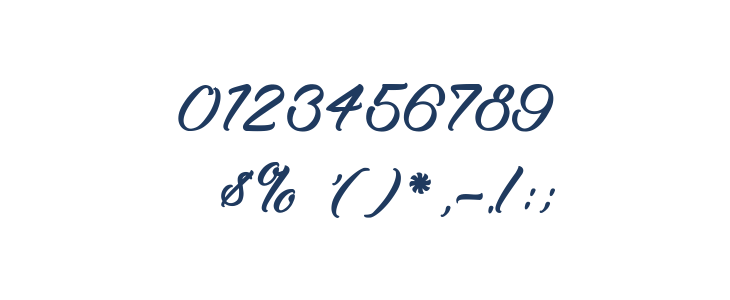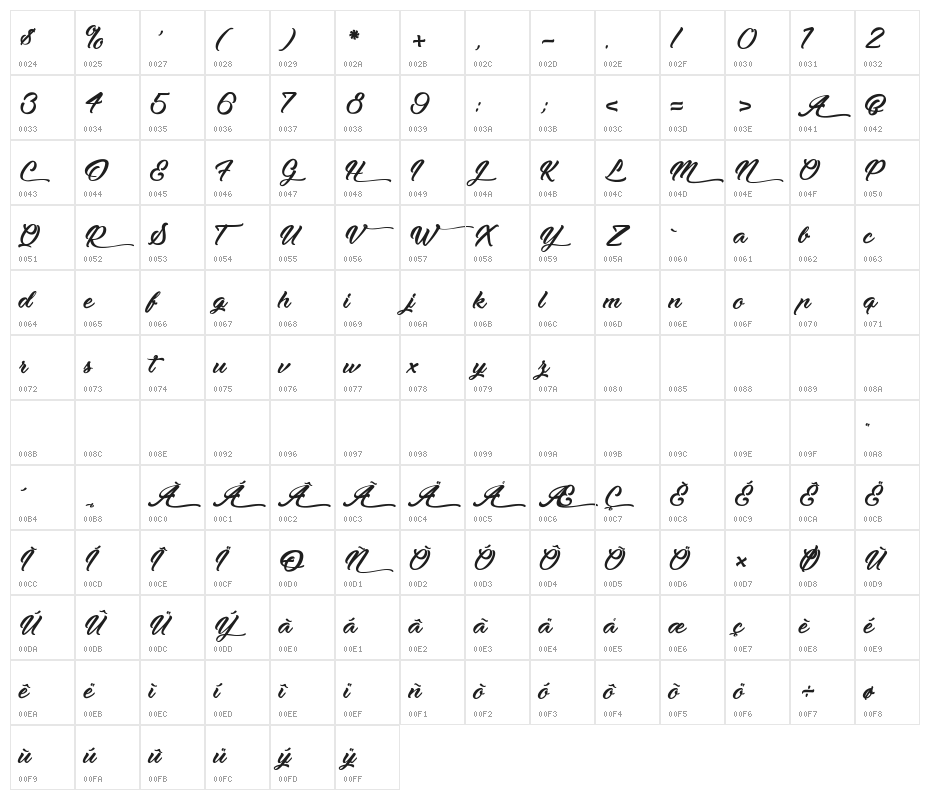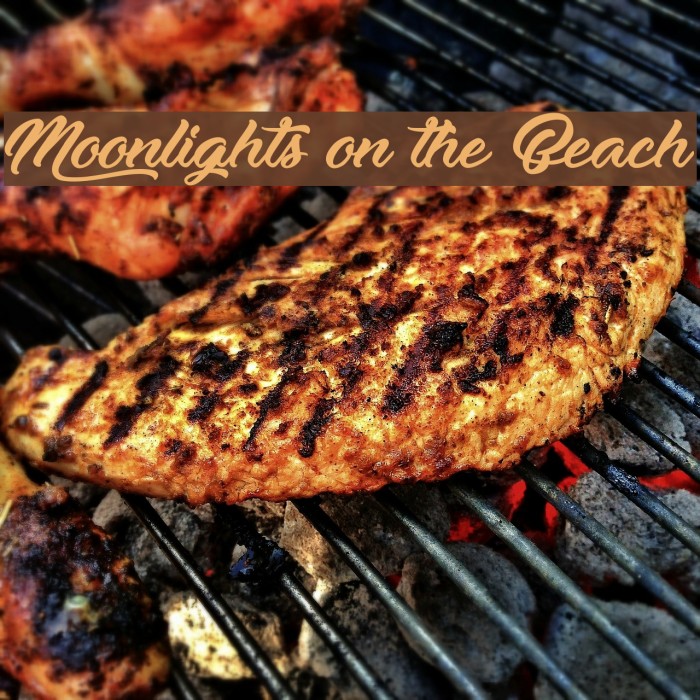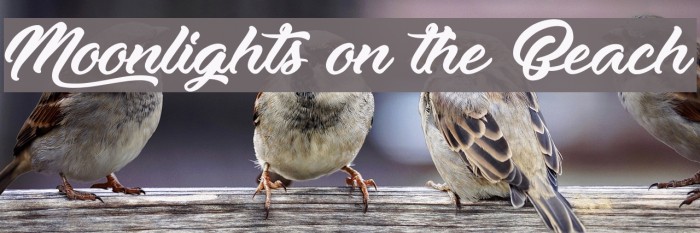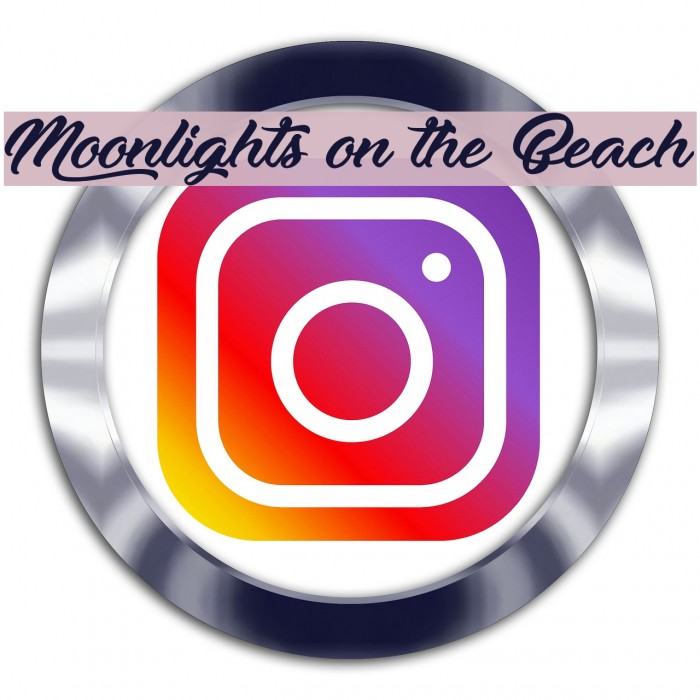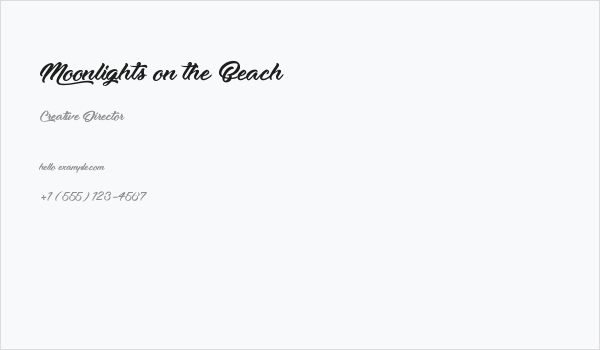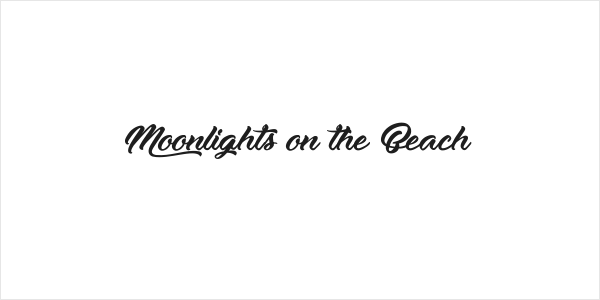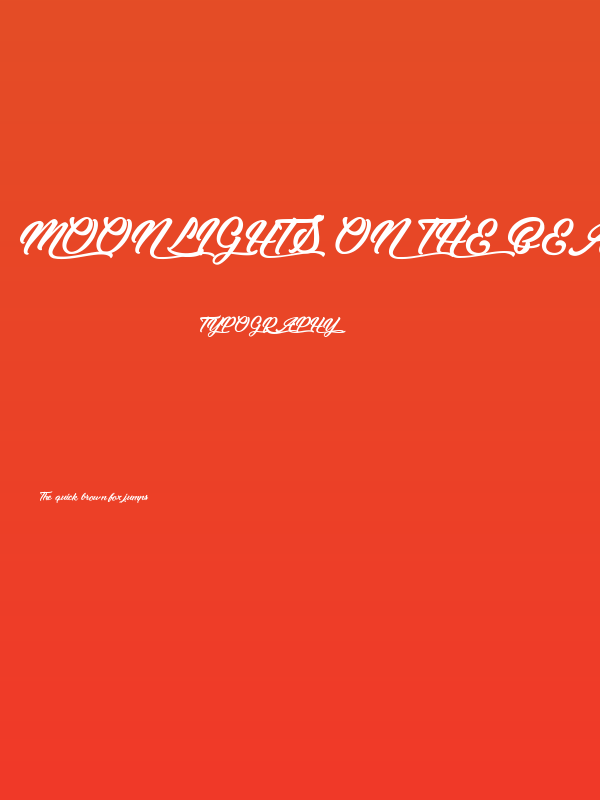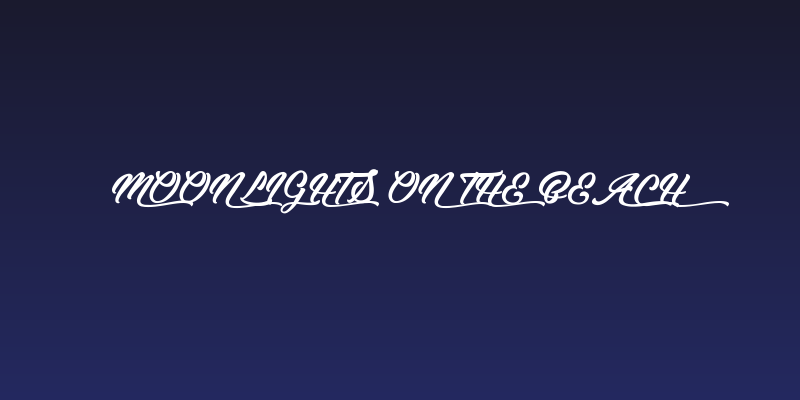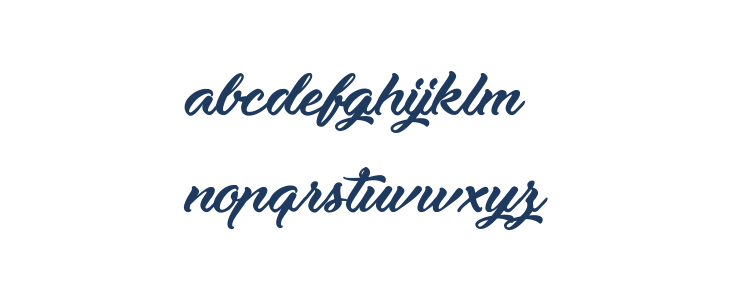
Moonlights on the Beach Font
Moonlights on the Beach Description
This script font features elegant, flowing characters with a classic calligraphic style. The uppercase letters are ornate and sweeping, with extended flourishes that add a touch of sophistication. The lowercase letters maintain a smooth, connected flow, enhancing readability while preserving the decorative nature. Numbers and special characters are designed with the same attention to detail, ensuring consistency across all elements. The overall appearance is both graceful and dynamic, making it ideal for projects that require a personal or artistic touch.